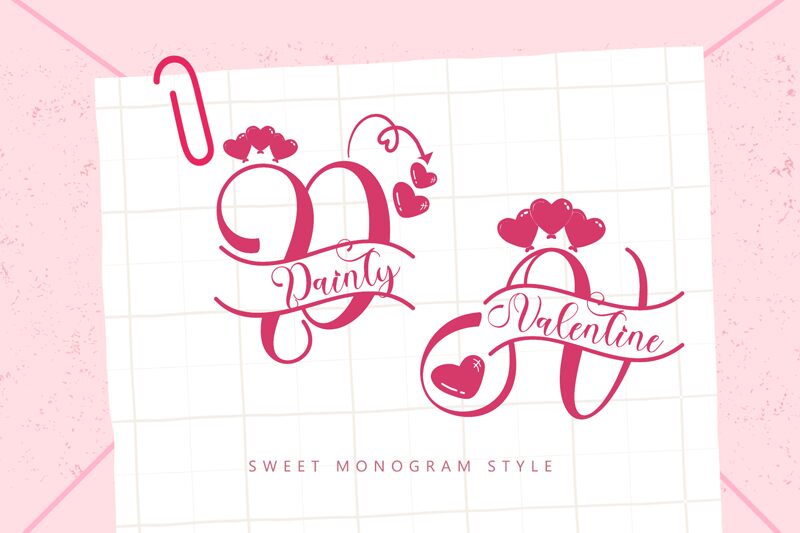
Dainty Valentine Monogram font family is a charming and romantic font by Yoga Letter. With an elegant and ornate design, this font family is perfect for capturing the essence of love and whimsy. Its flourished, decorative styles offer a beautiful personalized touch to any project. Incorporating heart-themed elements, it is expressive and delightful to work with and use.
Dainty Valentine Monogram is ideal for use in designing holiday cards, wedding invitations, gift wrapping, scrapbooking, posters, flyers, and more. It will look great in digital graphics, social media posts, and website and blog headlines among other options.